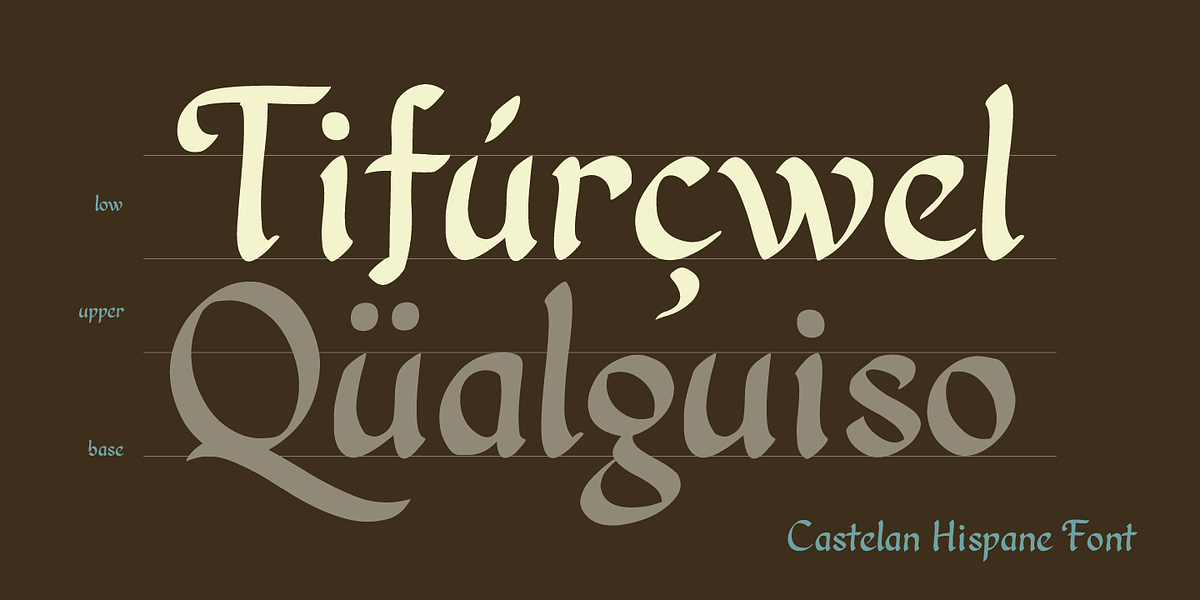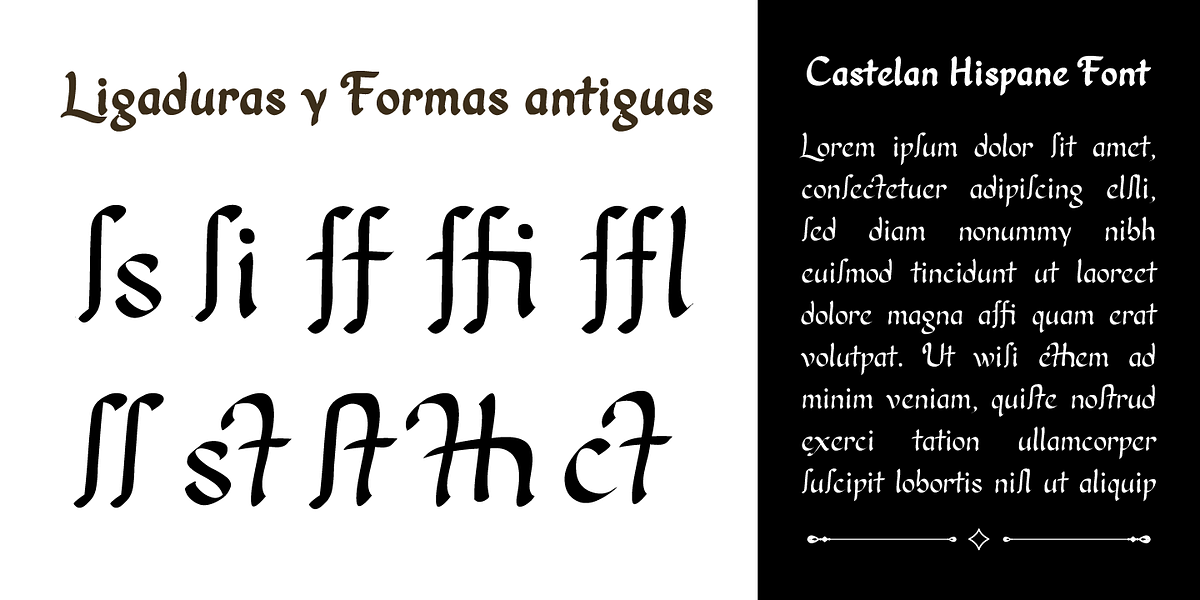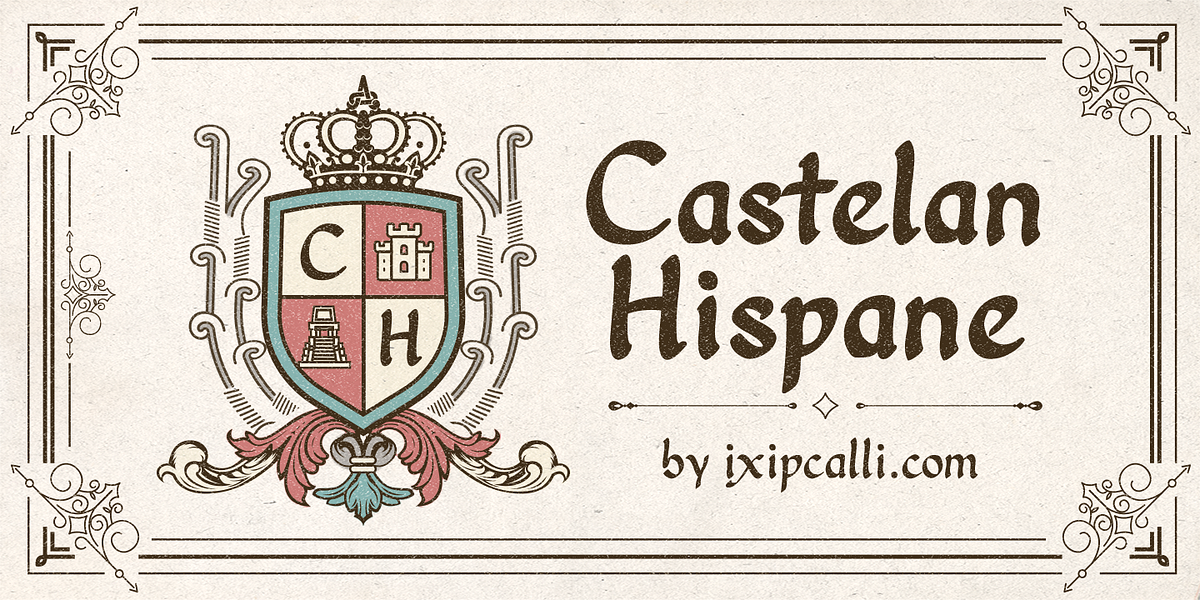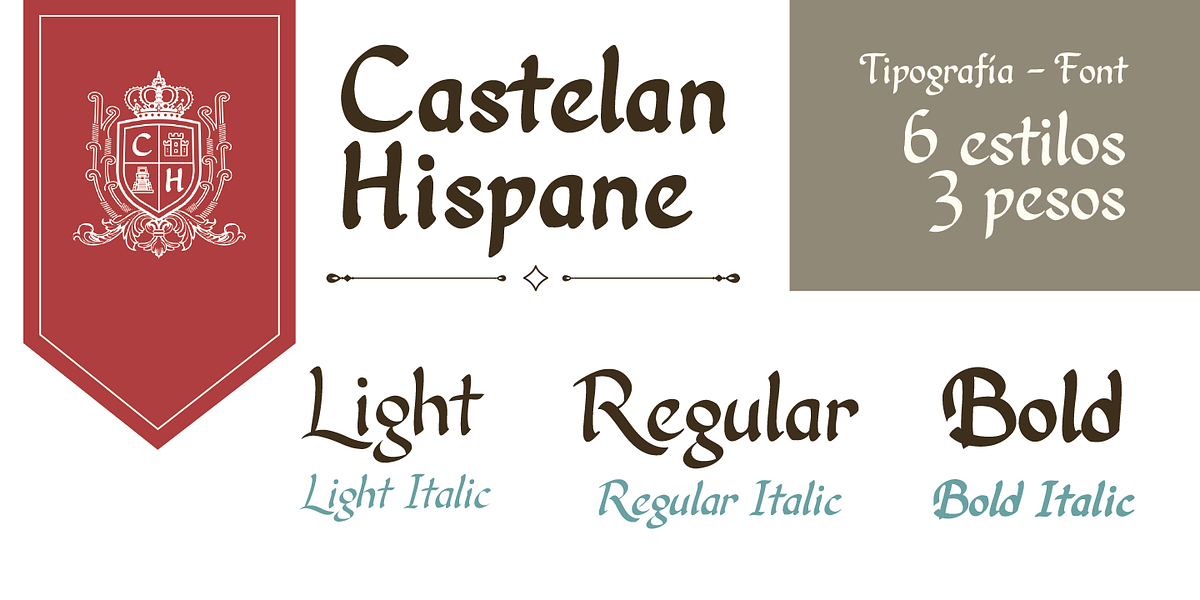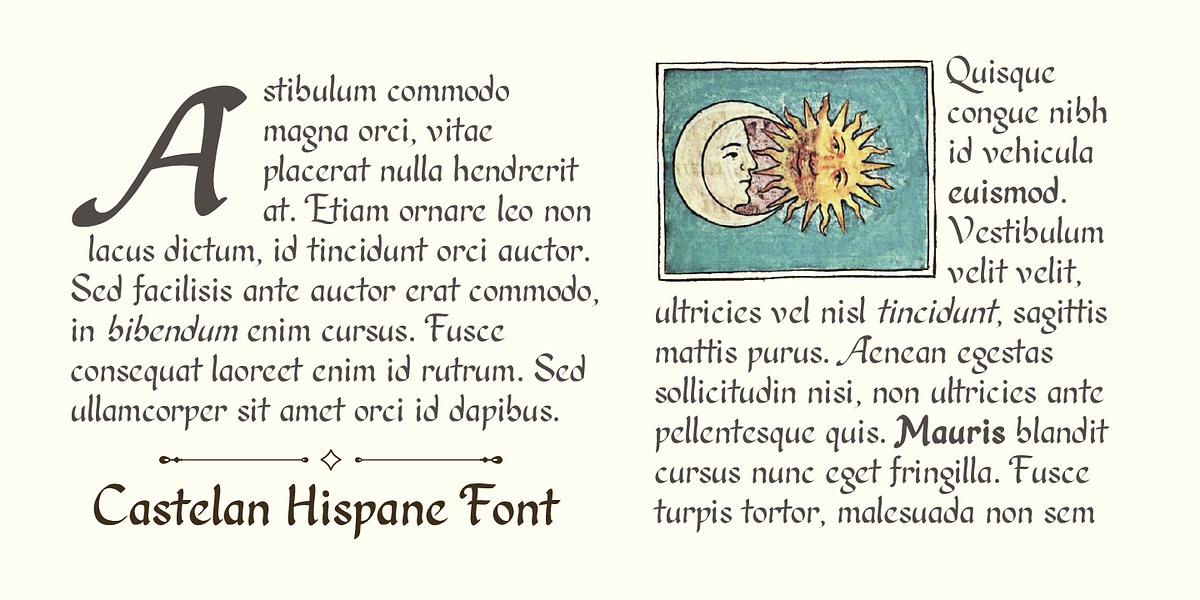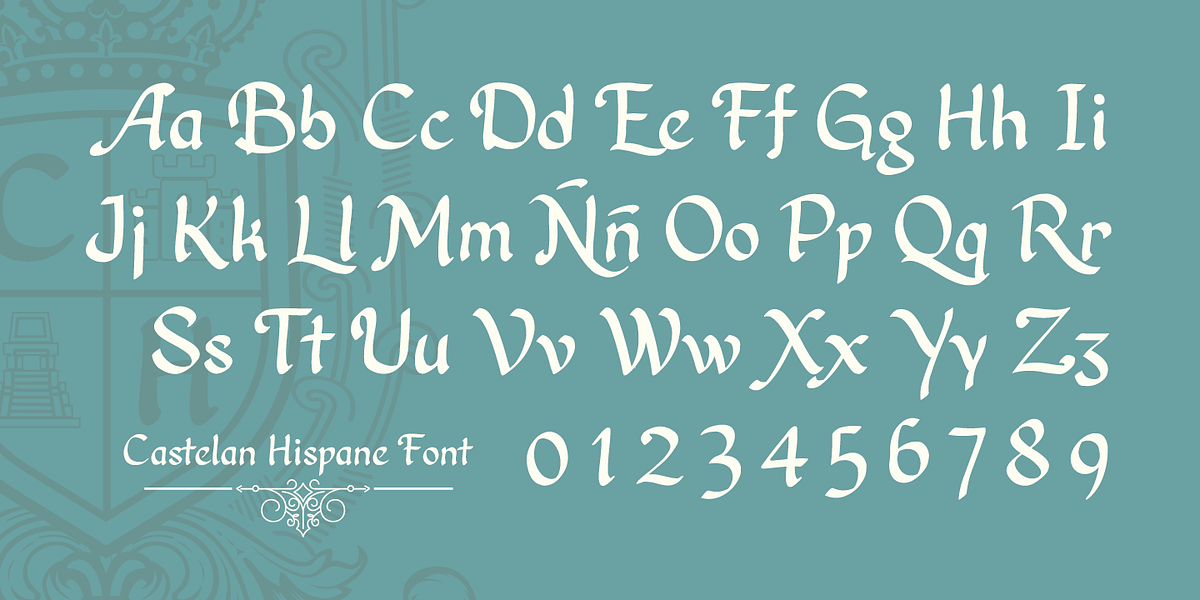
Castelan Hispane
Castelan Hispane is a script typeface designed to evoke the feel of 16th-century Spanish documents. Its semi-medieval cursive strokes give it both an antique and modern appearance, making it suitable for projects needing a touch of historical elegance.